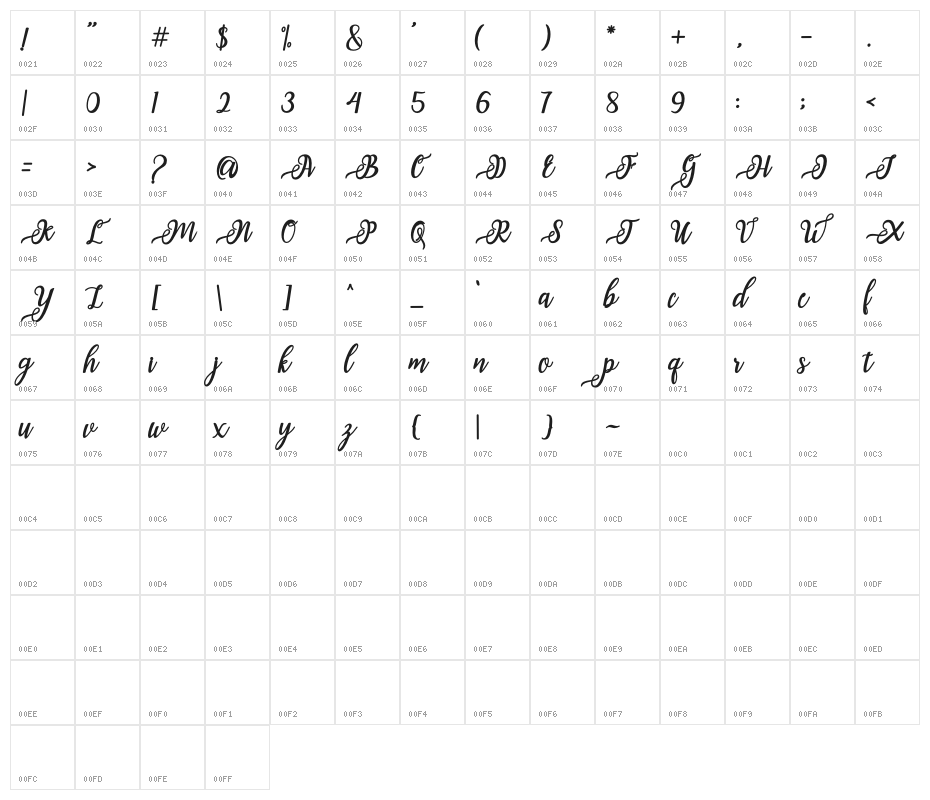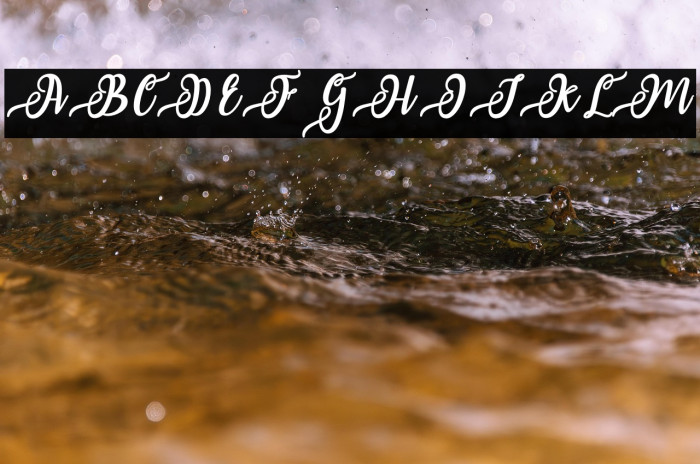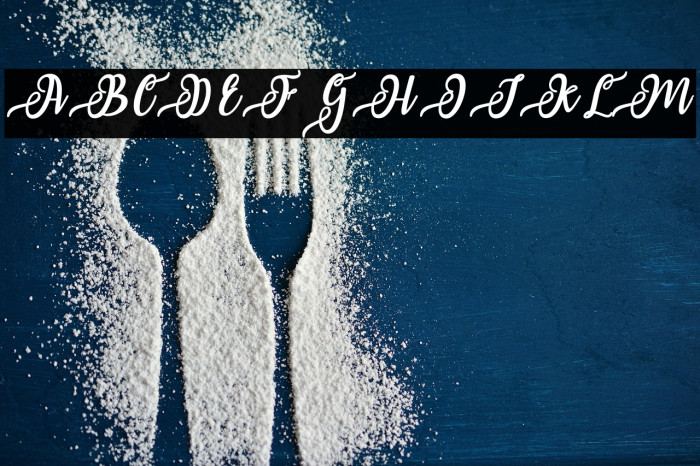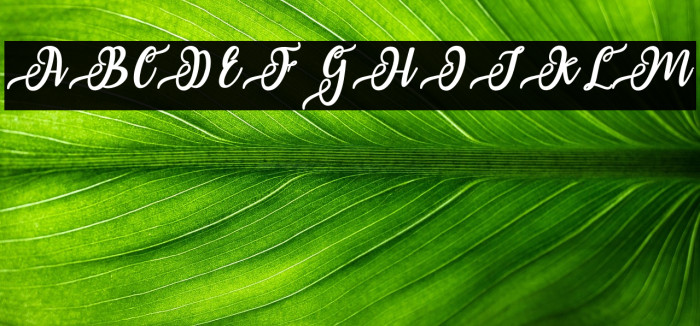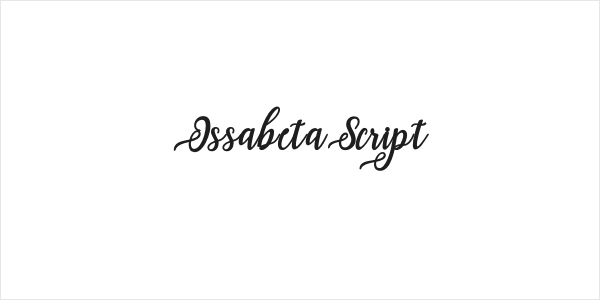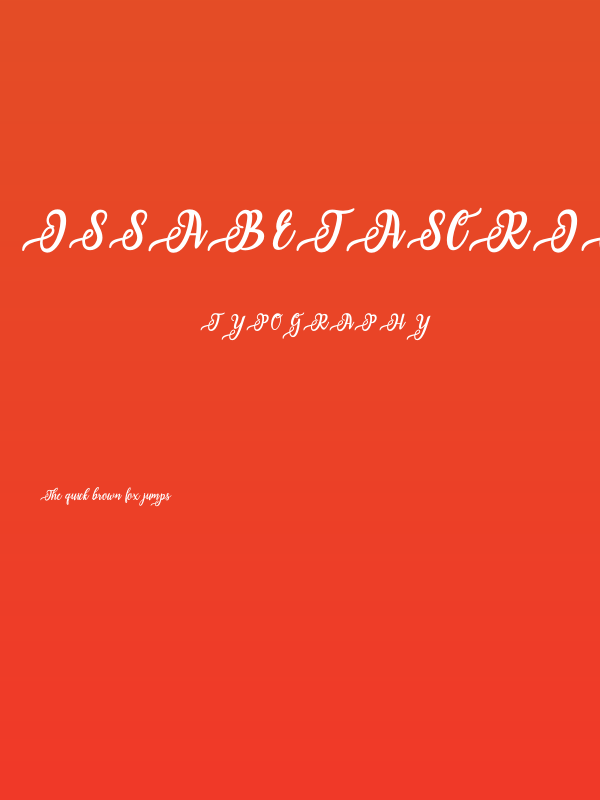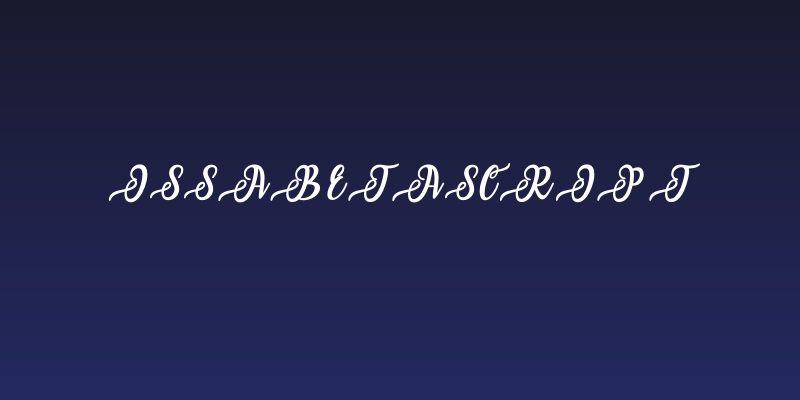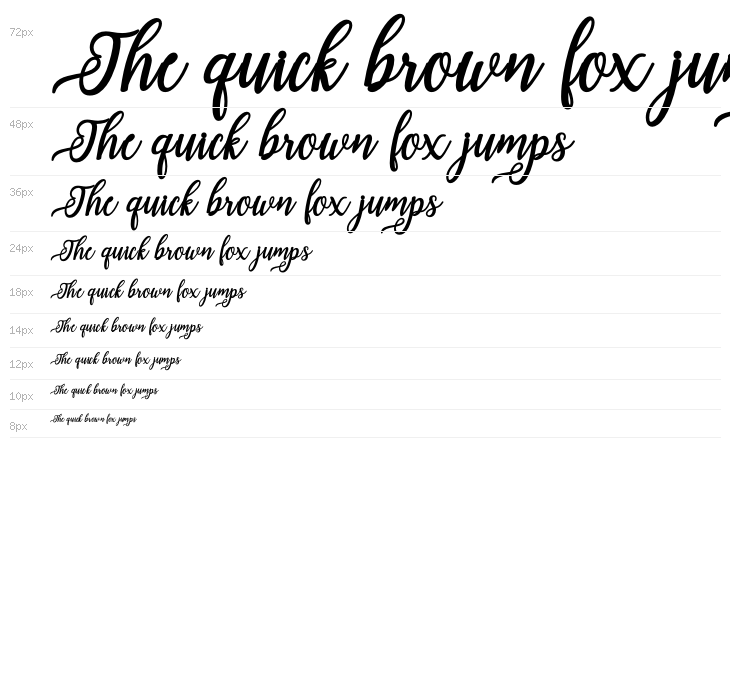
IssabetaScript Font
IssabetaScript Description
This font exudes a charming and elegant script style, characterized by its flowing, cursive letterforms. Each character is crafted with smooth curves and delicate loops, giving it a handwritten appearance. The uppercase letters are ornate, with decorative swashes that add a touch of sophistication. The lowercase letters maintain a consistent flow, enhancing readability while preserving the script's artistic flair. Numbers and special characters are designed to complement the overall aesthetic, ensuring versatility across various applications. The font's graceful and fluid nature makes it ideal for projects that require a personal, yet polished touch.
| Overall Style | Elegant |
| Use Case | Logos, Invitations, Decorative text |
| Proposed Projects | Ideal for wedding invitations, greeting cards, branding, and elegant packaging designs. |